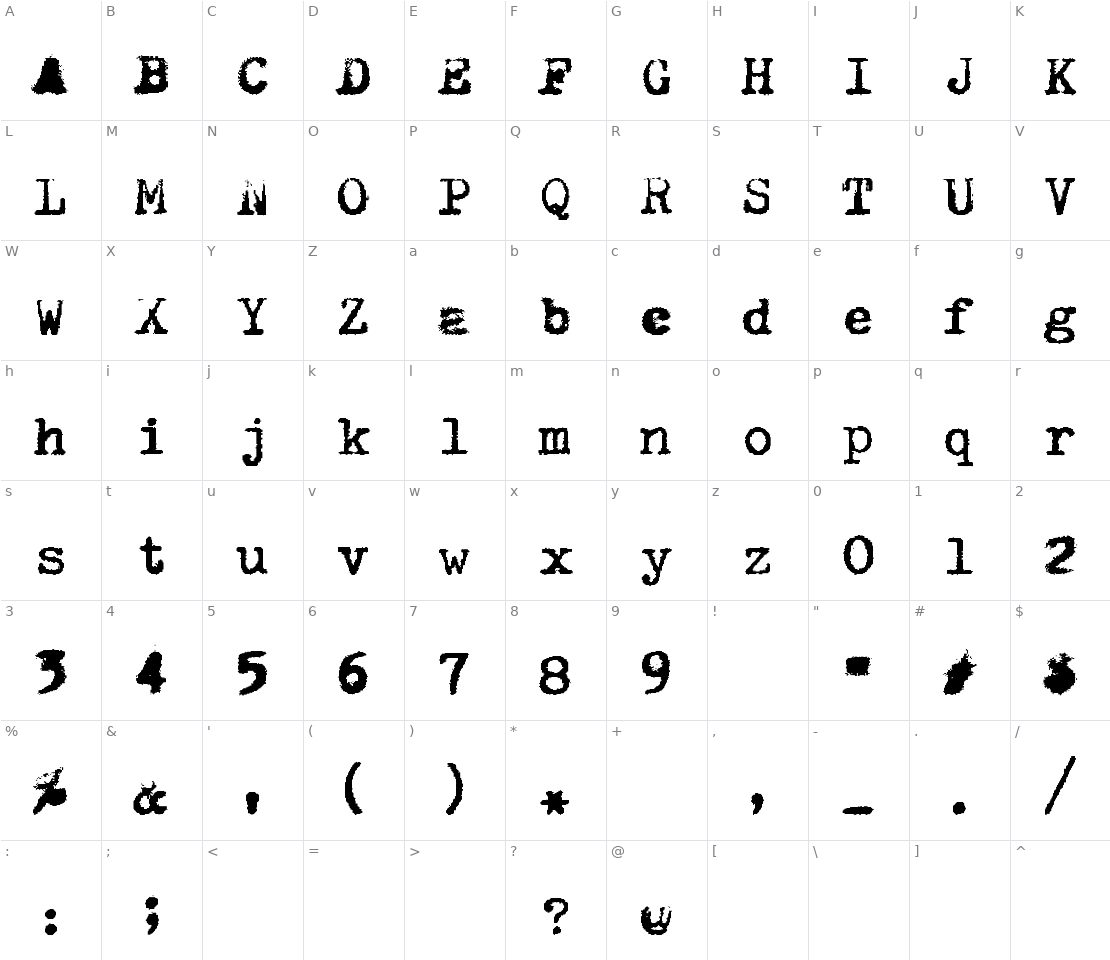
Hermes Rocket
Hermes Rocket from Xerographer Fonts captures the uneven impression of a well-used portable typewriter, with each character showing the kind of ink spread and worn edges you'd get from a ribbon that's seen better days. The monospace structure and rough, distressed letterforms give it an authentically vintage feel rather than a digitally faked one. Named after the classic Swiss-made portable, it works for headlines, short blocks of text, or anywhere you want that tactile, mid-century typing quality.